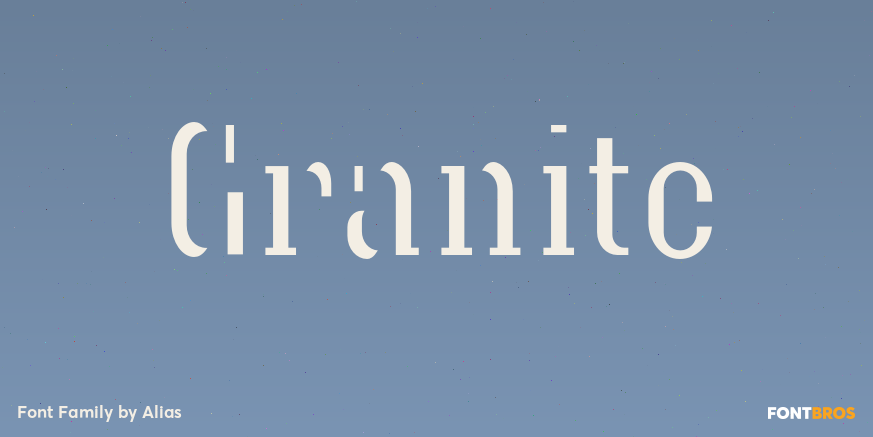
Granite
About Granite
A semi text type with thin stresses, in Granite Semi Stencil the overall weight of the Granite Regular has been decreased by a set unit which has obliterated the stress to leave white space. This gives the typeface an idiosyncratic almost arbitrary take…